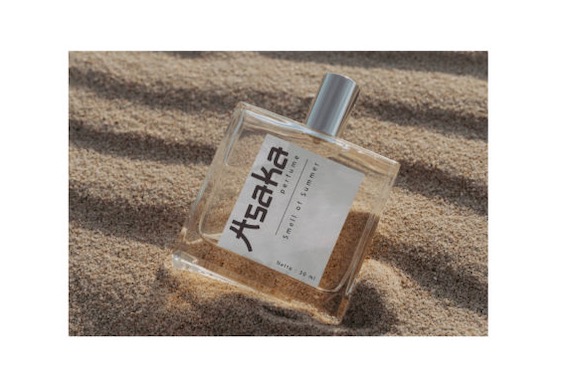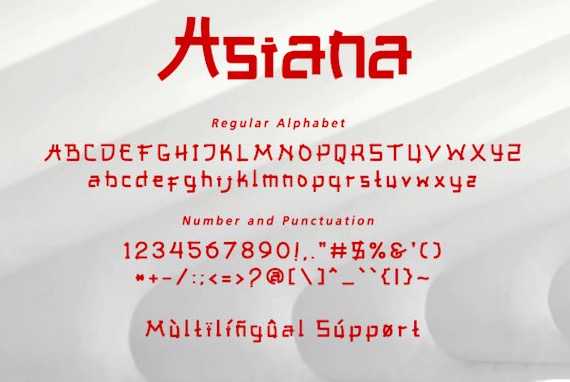
Asiana is a classy Japanese-styled display font that was created and shared by Tinyhandletter. It’s inspired by a unique modern traditional culture display font. It looks stunning on your Chinese New Year card, event, brand, logo, etc.
Asiana Display Font
Publisher: Tinyhandletter Studio